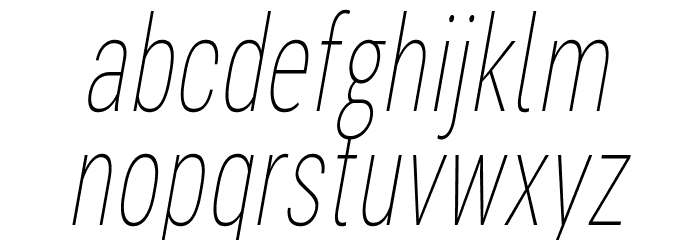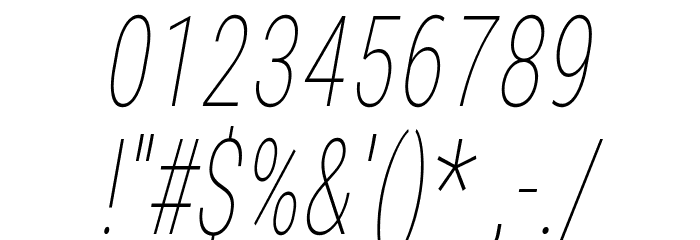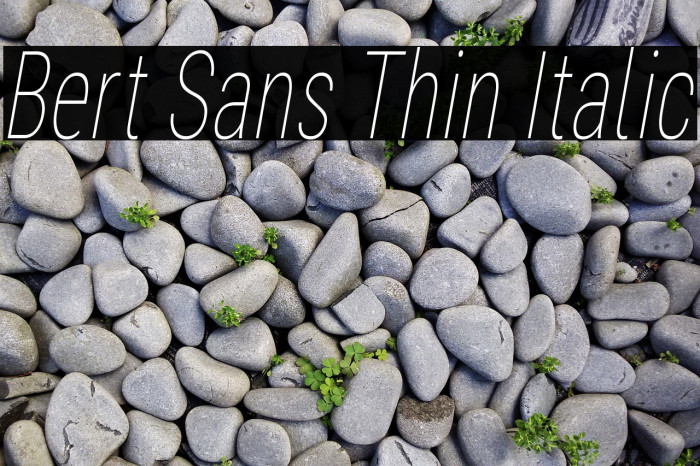
Bert Sans Thin Italic Font
This typeface features a sleek, modern design with a thin, elegant structure. The characters are slightly slanted, giving it an italicized appearance that adds a sense of motion and fluidity. The sans-serif style ensures a clean and minimalist look, making it highly legible. Each letter is crafted with precision, maintaining a consistent stroke width throughout. The numerals and special characters complement the alphabet with the same thin and italicized characteristics, ensuring uniformity across all glyphs.
A thin, italicized sans-serif font with a modern and elegant design.
- Proposed Projects: Ideal for fashion magazines, modern branding, elegant invitations, and minimalist web design.